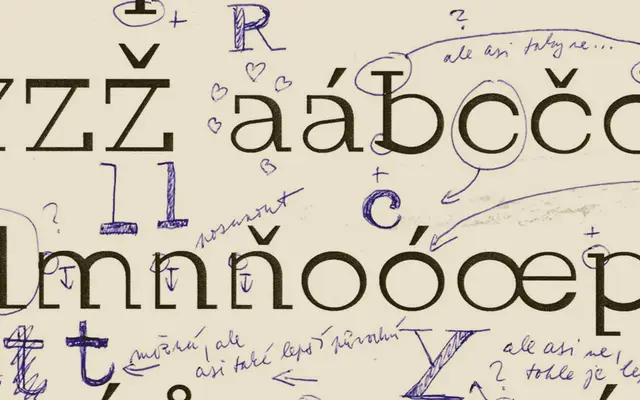
A monospaced serif rooted in a glitched Courier, with stroke variation derived from poorly placed pixels that nonetheless holds up at small sizes.
Post began as an experimental interpretation of Courier where the stroke variation was determined entirely by pixel misalignment rather than calligraphic convention. Despite its glitch-derived aesthetic, the typeface remains legible at smaller sizes, a property that prompted further research into readability by its designer Viktor. The result sits between expressive pixel-era distortion and functional text use.
Post originates from a glitched interpretation of Courier, a classic monospaced serif typeface; its pixel-derived stroke variation and retained readability at small sizes place it squarely in the monospaced serif category.